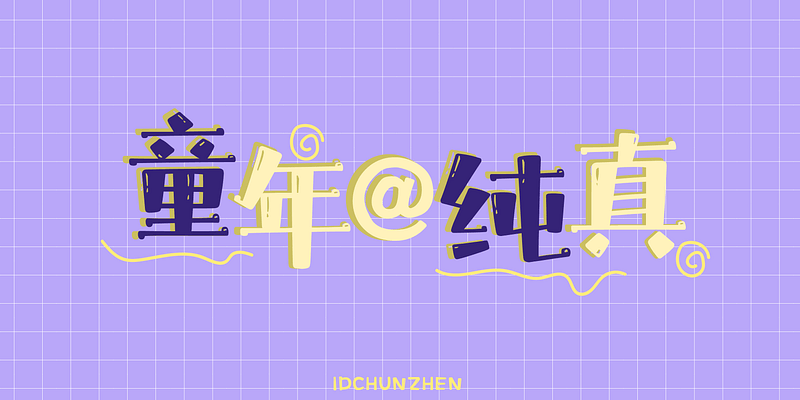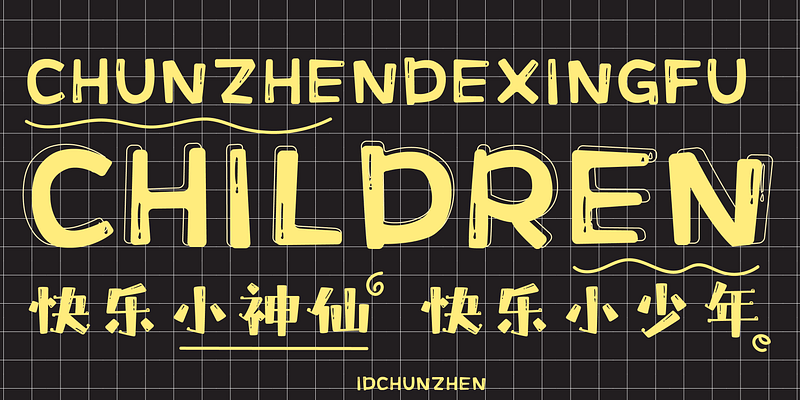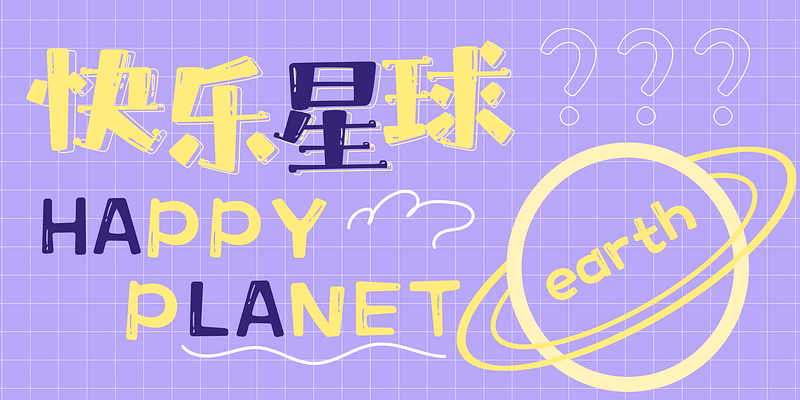
This font creates a sense of lightness and liveliness of children’s hand painting. It is humorous and lovely. The strokes are interspersed vividly and the contrast of thickness and thin gives people a lively and stable feeling. At the sametime, the texture effect like graffiti adds childlike charm. Horizontal stroke and the special treatment of the outline also add distinct personality to the font, making it a strong visual expression.